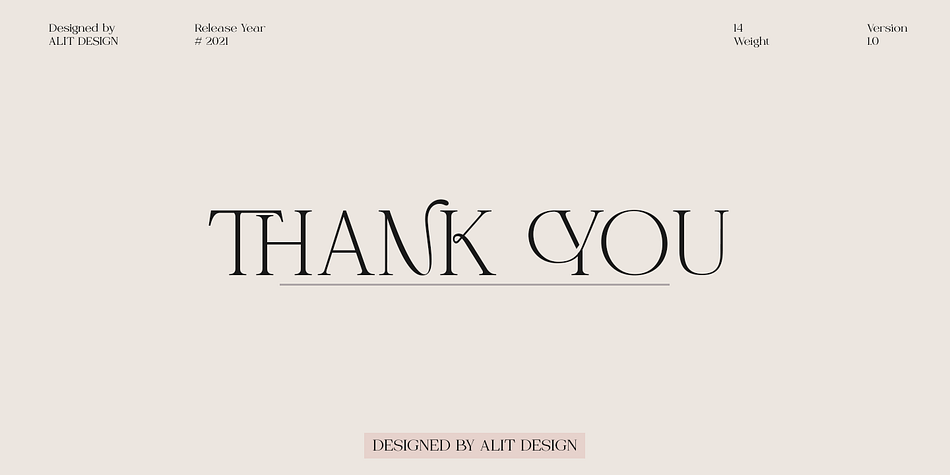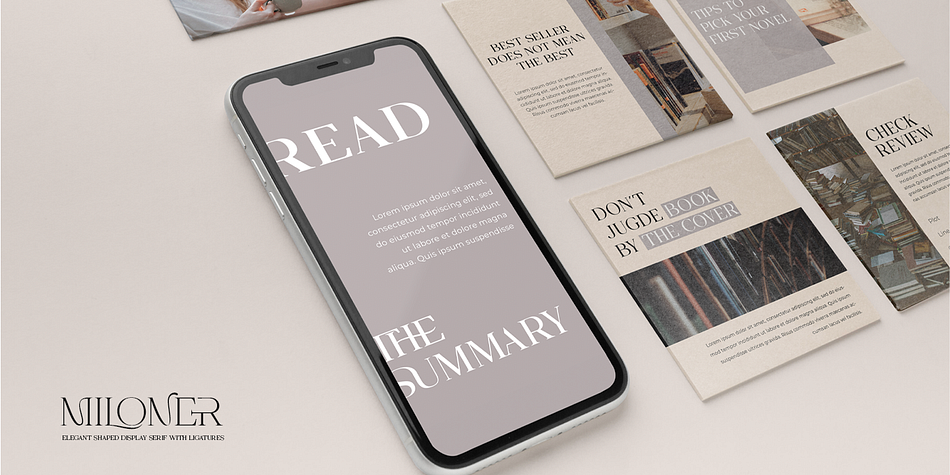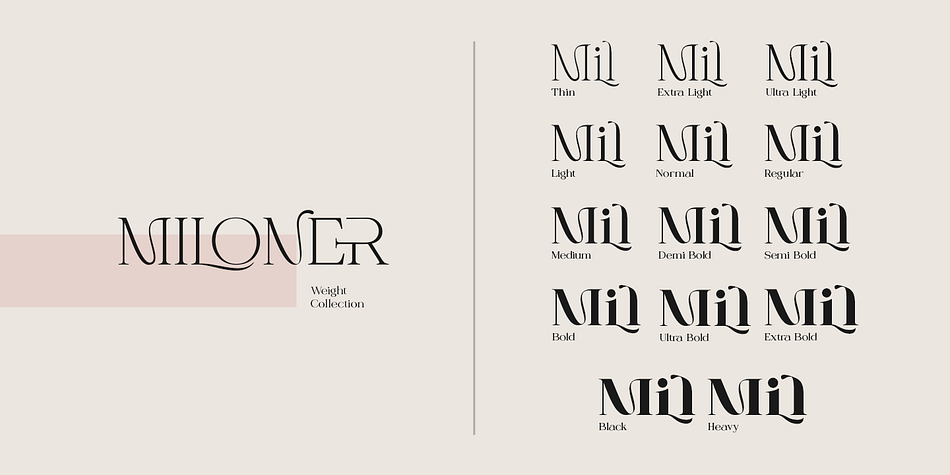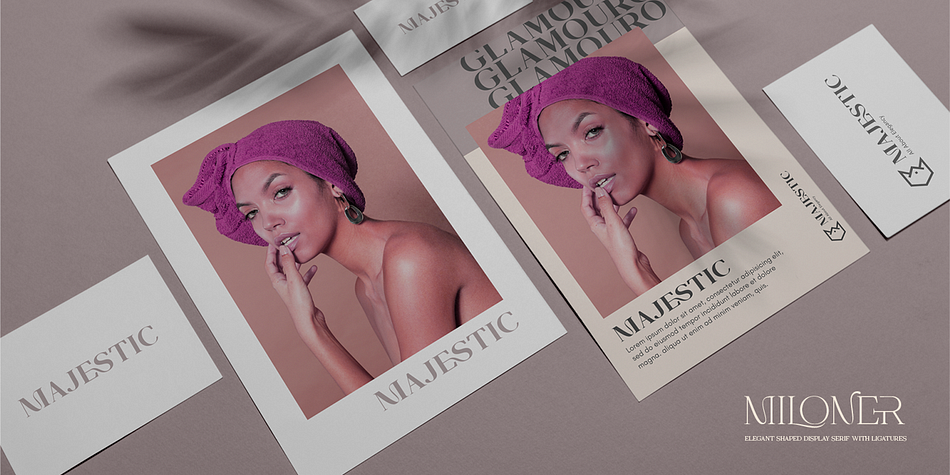
Miloner
Designed by Alit Suarnegara, Miloner is a display serif font family. This typeface has fourteen styles and was published by Alit Design.
Introducing Miloner Typeface
MILONER font family consists of 14 families, from Thin to Heavy style. The elegant modern font creates a unique design and is sure to steal the eye of the design target audience. Besides being unique, the MILONER font also has a luxury simple character that makes the design charming and luxurious.
These a fonts are perfect for designs with the concept of elegant, luxury, romance, fashion and so on.